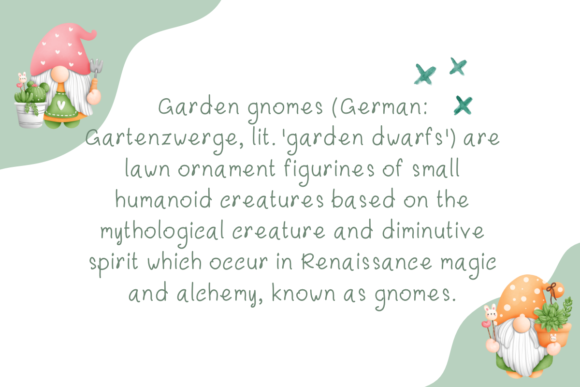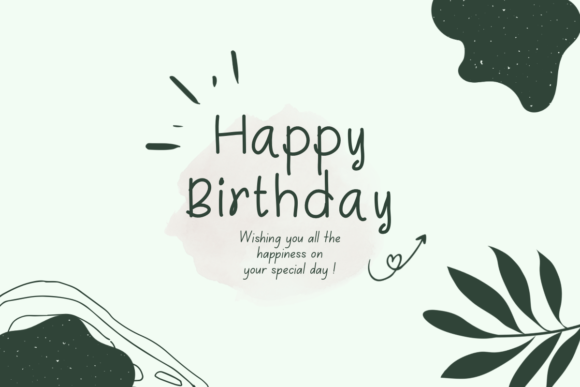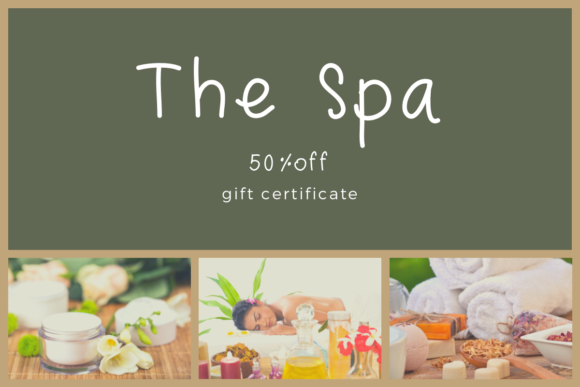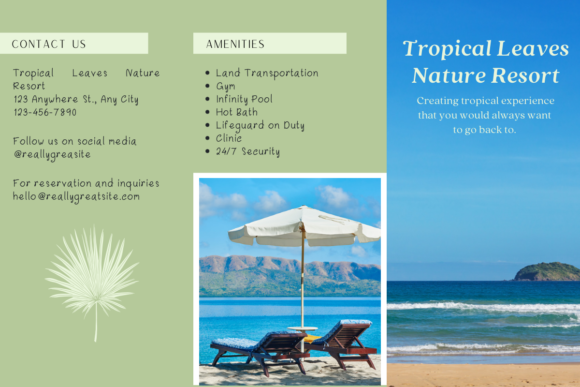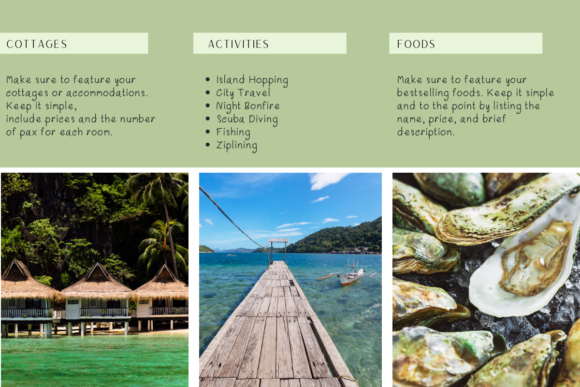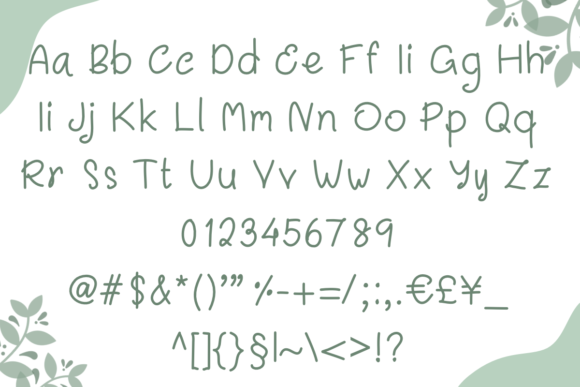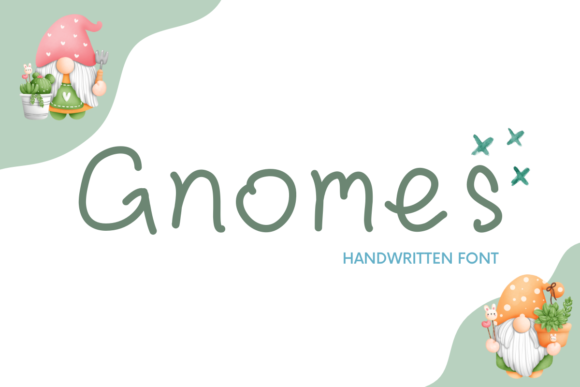
Gnomes Font: A Sweet and Friendly Handwritten Font for Your Creative Projects
Are you a designer, crafter, or DIY enthusiast looking for a unique and friendly font to add a personal touch to your projects? Look no further than Gnomes Font, a sweet and handwritten font that is sure to capture your imagination. With its natural and unique style, Gnomes Font is incredibly versatile and can be used in a wide range of designs, from whimsical crafts to professional branding.
The Charm of Gnomes Font
Gnomes Font is a one-of-a-kind handwritten font that exudes warmth and friendliness. Its sweet and playful style is reminiscent of a child’s scribbles, yet it has a sophistication that makes it perfect for adult projects too. The font’s natural and unique style makes it incredibly fitting for a large pool of designs, from rustic and vintage to modern and minimalist.
One of the standout features of Gnomes Font is its versatility. Whether you’re creating a logo, a label, a card, or a poster, this font is sure to add a touch of personality and whimsy to your design. The only limit is your imagination! With Gnomes Font, you can create unique and eye-catching designs that reflect your personal style and brand.
Gnomes Font is a dream come true for designers and crafters who are looking for a font that is both fun and functional. Whether you’re creating digital files, printable art, or handmade crafts, this font is sure to inspire your creativity. The font’s playful style makes it perfect for projects such as:
- Handmade cards and invitations
- DIY crafts and decorations
- Digital art and illustrations
- Sign making and lettering
Why Choose Gnomes Font?
So why choose Gnomes Font over other fonts? Here are just a few reasons why this font stands out:
- Unique and handmade feel: Gnomes Font has a unique, handmade feel that sets it apart from more traditional fonts.
- Versatile: This font can be used in a wide range of designs, from rustic to modern.
- Easy to read: Despite its playful style, Gnomes Font is easy to read and understand.
- High-quality: This font is designed to be high-quality and print-ready, making it perfect for professional projects.
Tips for Using Gnomes Font
Here are a few tips for using Gnomes Font in your designs:
- Experiment with different sizes: Gnomes Font looks great in a variety of sizes, from small and delicate to large and bold.
- Pair with other fonts: Try pairing Gnomes Font with other fonts to create a unique and eye-catching design.
- Use in combination with images: Gnomes Font looks great in combination with images, especially illustrations and watercolor designs.
- Make it your own: Don’t be afraid to get creative and make Gnomes Font your own. Experiment with different colors, textures, and effects to create a unique look.
In conclusion, Gnomes Font is a sweet and friendly handwritten font that is perfect for designers, crafters, and DIY enthusiasts. With its natural and unique style, this font is incredibly versatile and can be used in a wide range of designs. Whether you’re creating a logo, a label, or a card, Gnomes Font is sure to add a touch of personality and whimsy to your project. So why wait? Download Gnomes Font today and let your imagination run wild!